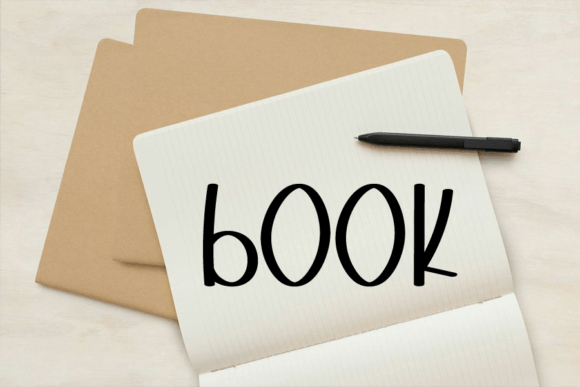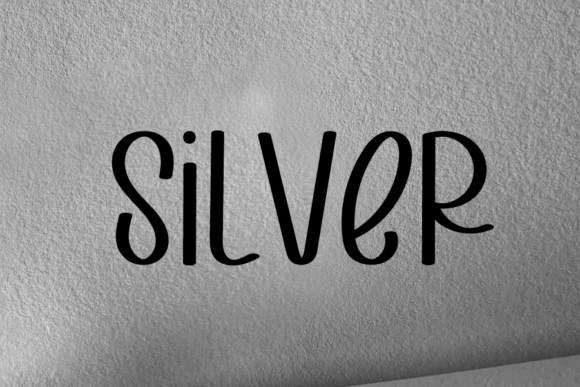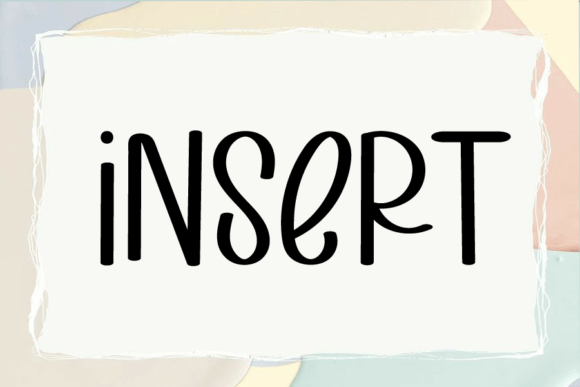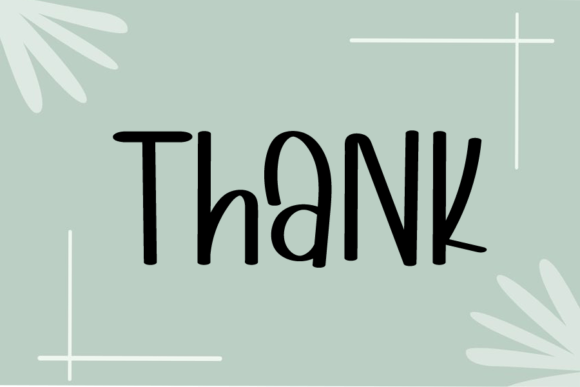
Sioner Font
About Sioner Font
Sioner Font is a classic handwritten script created with a freestyle and random touch. With its simple yet artistic strokes, this typeface delivers authenticity and character to both personal and professional designs. Because of its versatile nature, Sioner Font is perfect for logotypes, headlines, corporate identity, apparel branding, posters, magazines, books, and digital content.
A Classic Handwritten Typeface with Freestyle Charm
Handwritten fonts are admired for their personality, and Sioner Font takes this to a new level with its freestyle strokes. Its slightly random flow creates a natural look, while its balanced letters ensure readability. Moreover, its clean yet creative style adapts seamlessly to both modern and traditional layouts. As a result, this script is a dependable choice for designers who want originality and simplicity.
Perfect Typeface for Logos, Comics, and Books
For creatives working on visual identities or storytelling projects, Sioner Font is an excellent option. For example, it can transform a brand logo into a distinctive symbol of uniqueness. In addition, it works beautifully in book covers, comics, and cartoon titles. Because of its playful yet elegant charm, every project gains a personal, memorable feel.
A Script Typeface for Branding and Media
Businesses and content creators can rely on Sioner Font to add a professional yet human touch to their work. It looks stylish on apparel branding, product packaging, and promotional posters. Furthermore, it enhances music covers, movie posters, and YouTube thumbnails with creative energy. When paired with bold sans serif fonts, Sioner Font strikes a balance between fun and professionalism.
Another strength of Sioner Font is its adaptability across mediums. In print, it shines on magazines, posters, shopping bags, and clothing tags. Digitally, it elevates websites, blogs, Instagram posts, and presentation slides with authenticity. Since it scales clearly in both small and large sizes, this handwritten script is practical for countless creative uses.